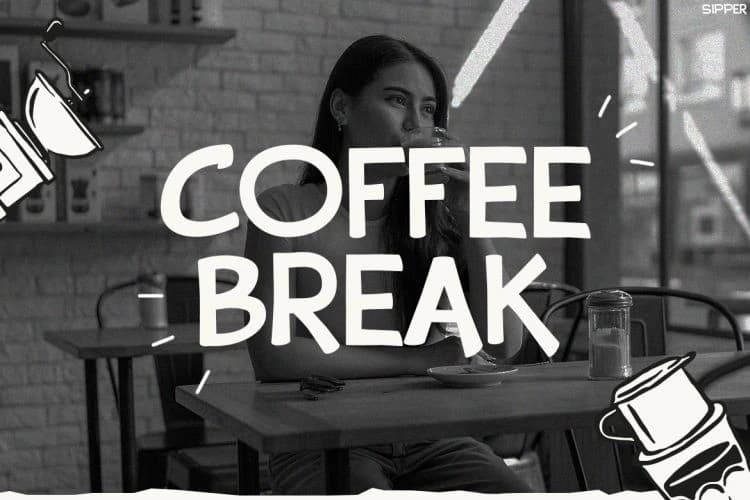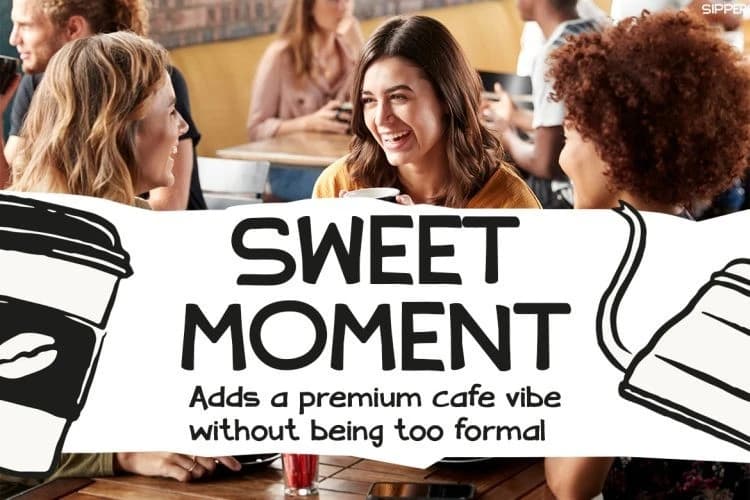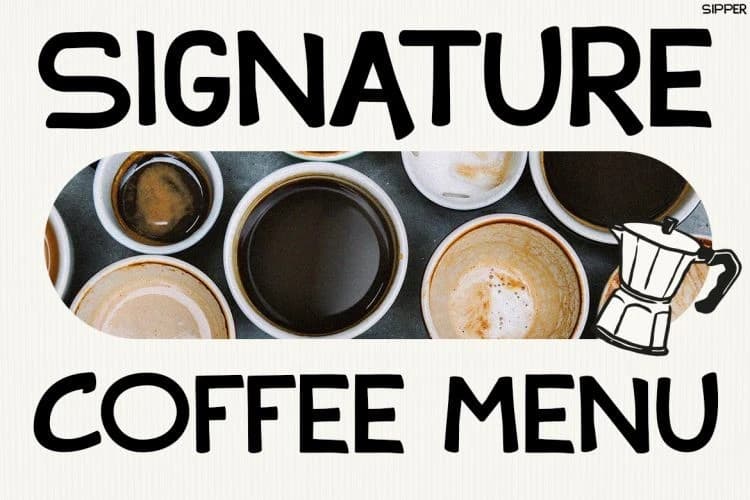
Sipper Playful Font
Sipper Playful Font is a fun and modern typeface designed to bring a fresh and friendly feel into your designs. At first glance, its bold rounded shapes and slightly quirky letterforms create a warm and approachable look.